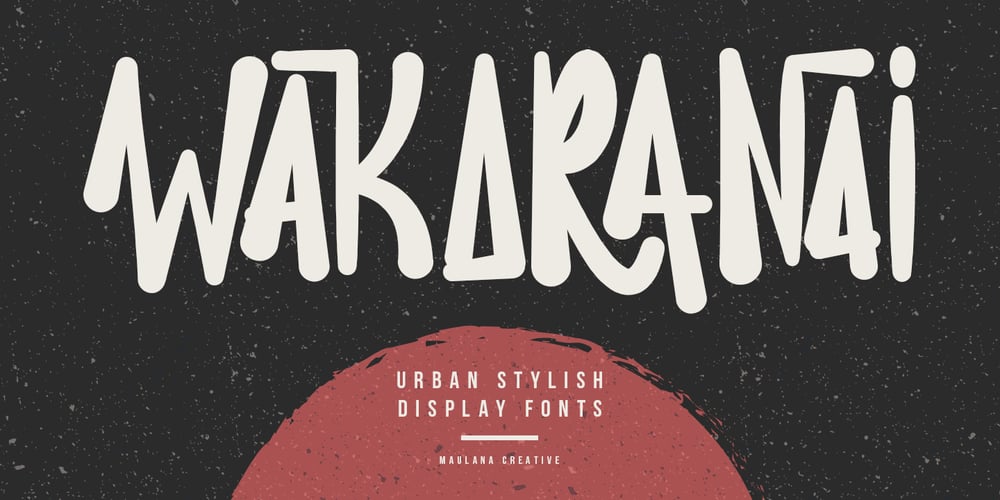
MC Wakaranai Font Family was designed by Gilang Maulana and published by Maulana Creative. MC Wakaranai contains 1 styles and family package options. Wakaranai urban brush display font, fun character with alternates and ligatures. To give you an extra creative work. Wakaranai urban brush display font support multilingual language.Many Thanks,Maulana Creative.